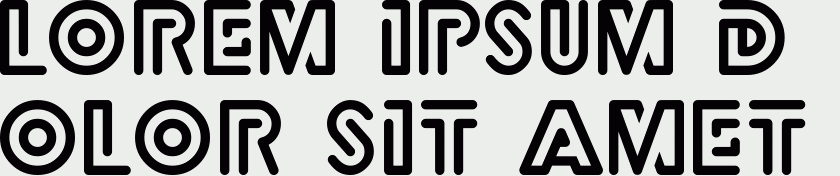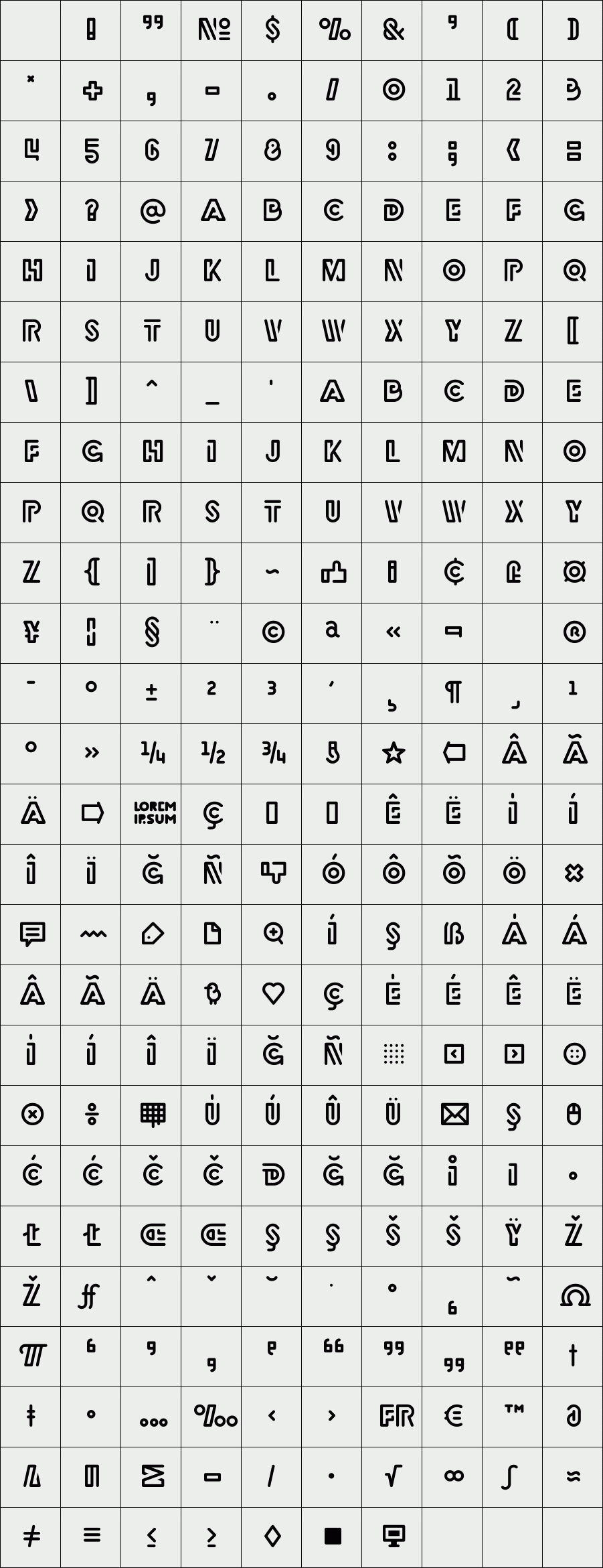
Rubber
A few letters and icons were made initially for an older logo proposal, later this evolved into a font. The characters include a few random icons for web, but this is not the main purpose of this font.